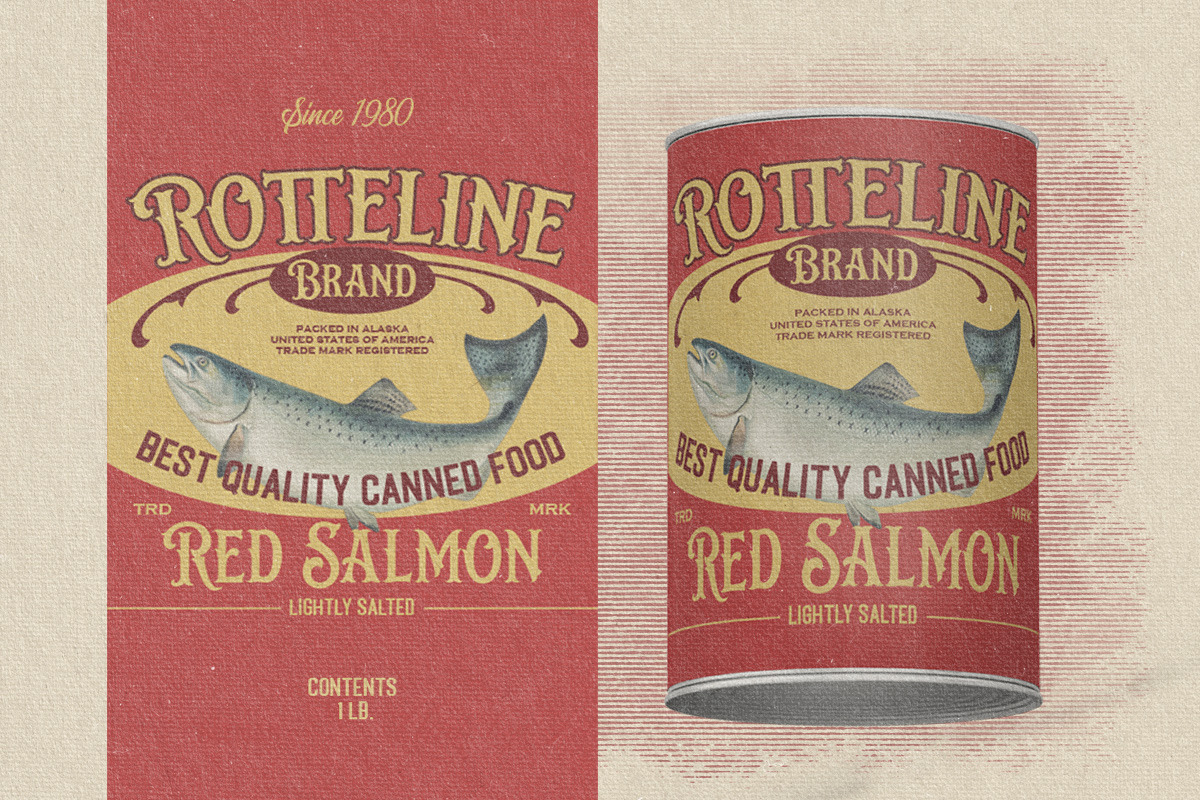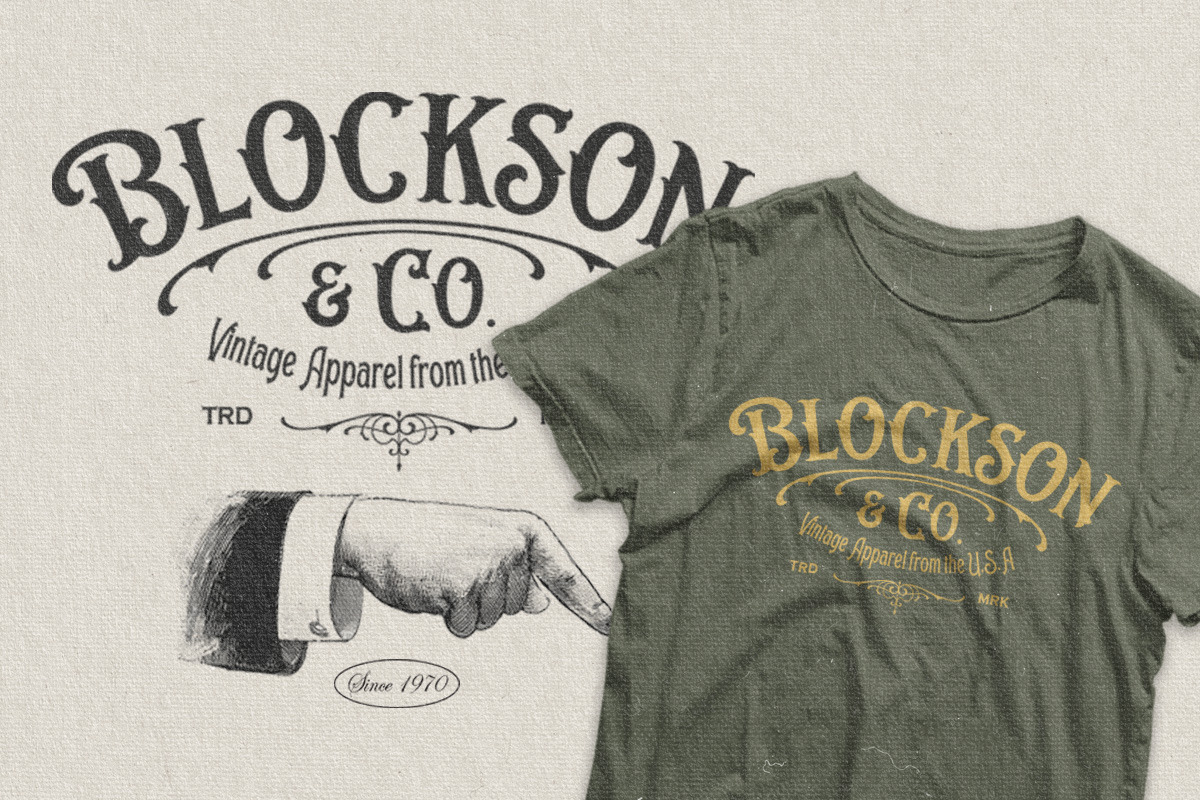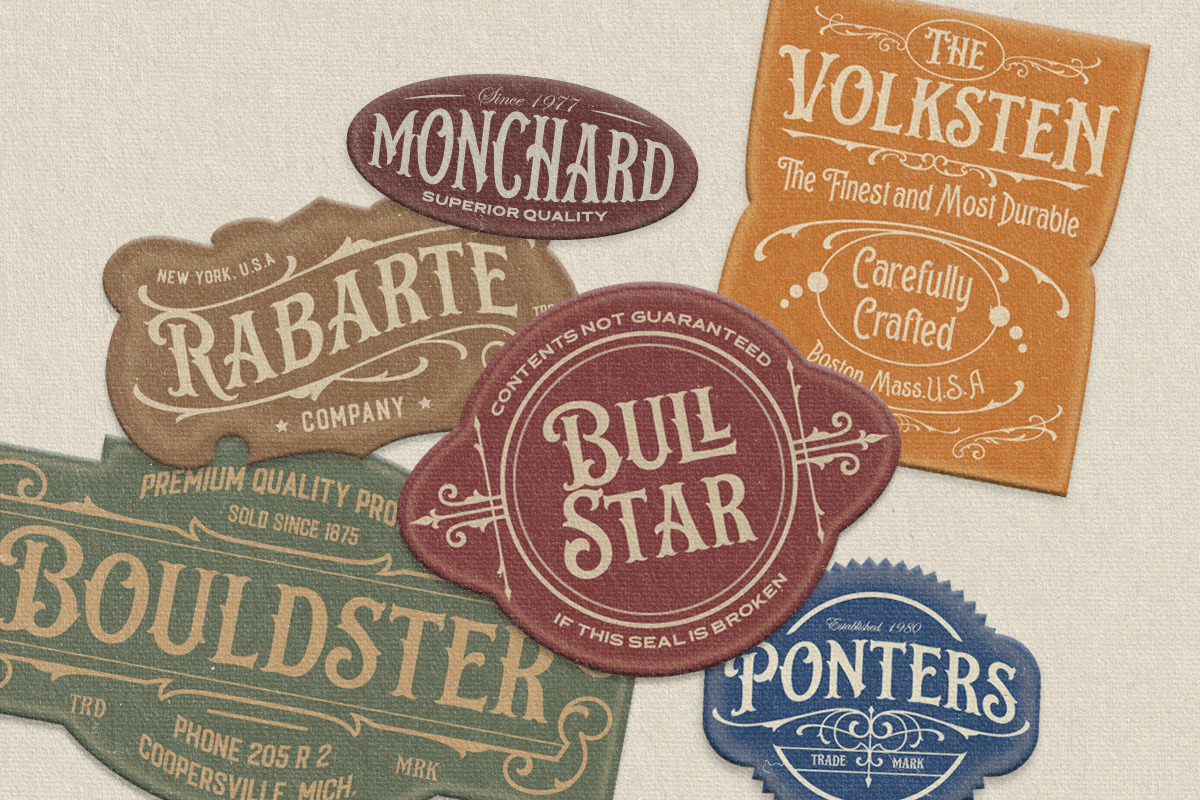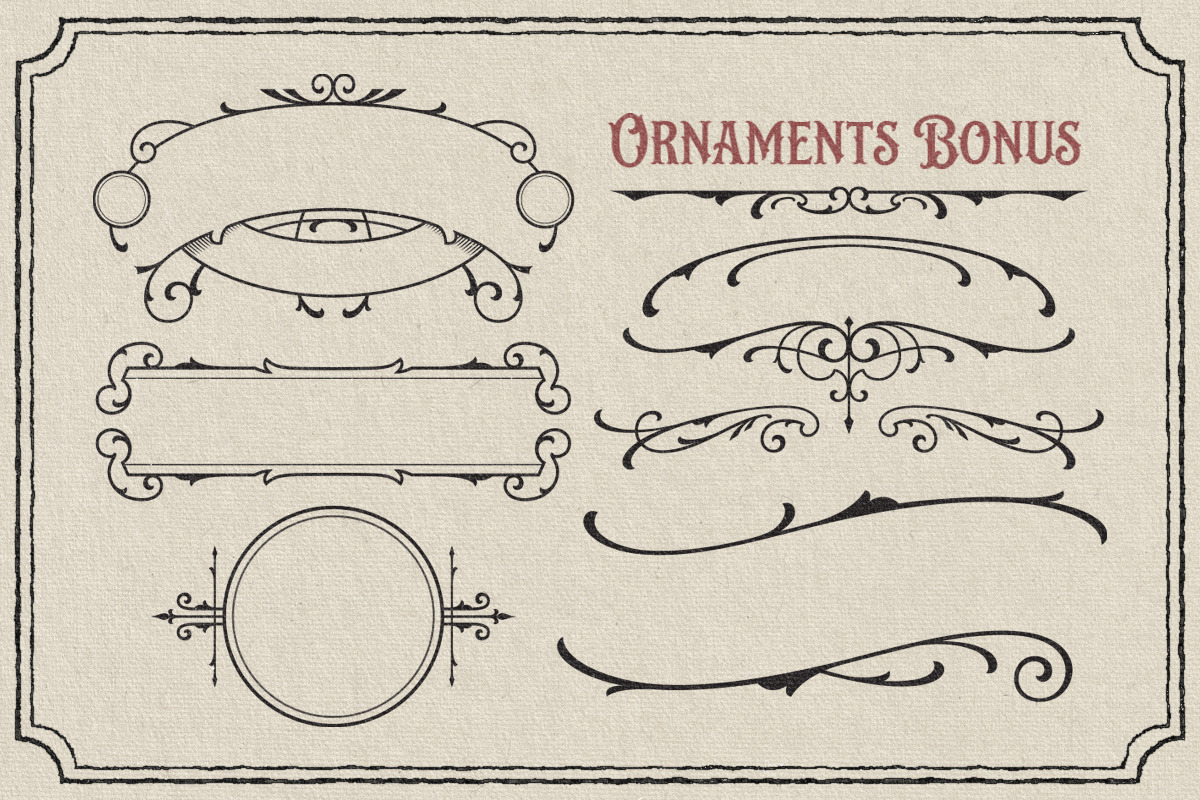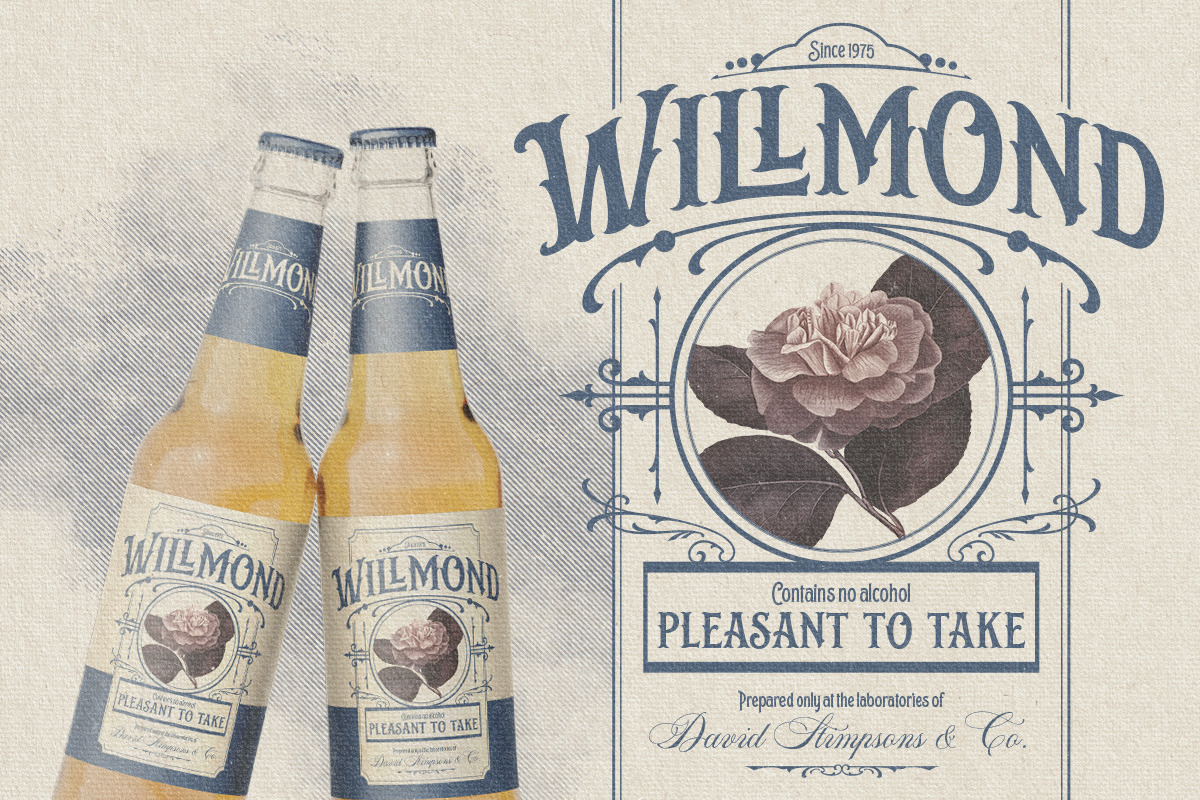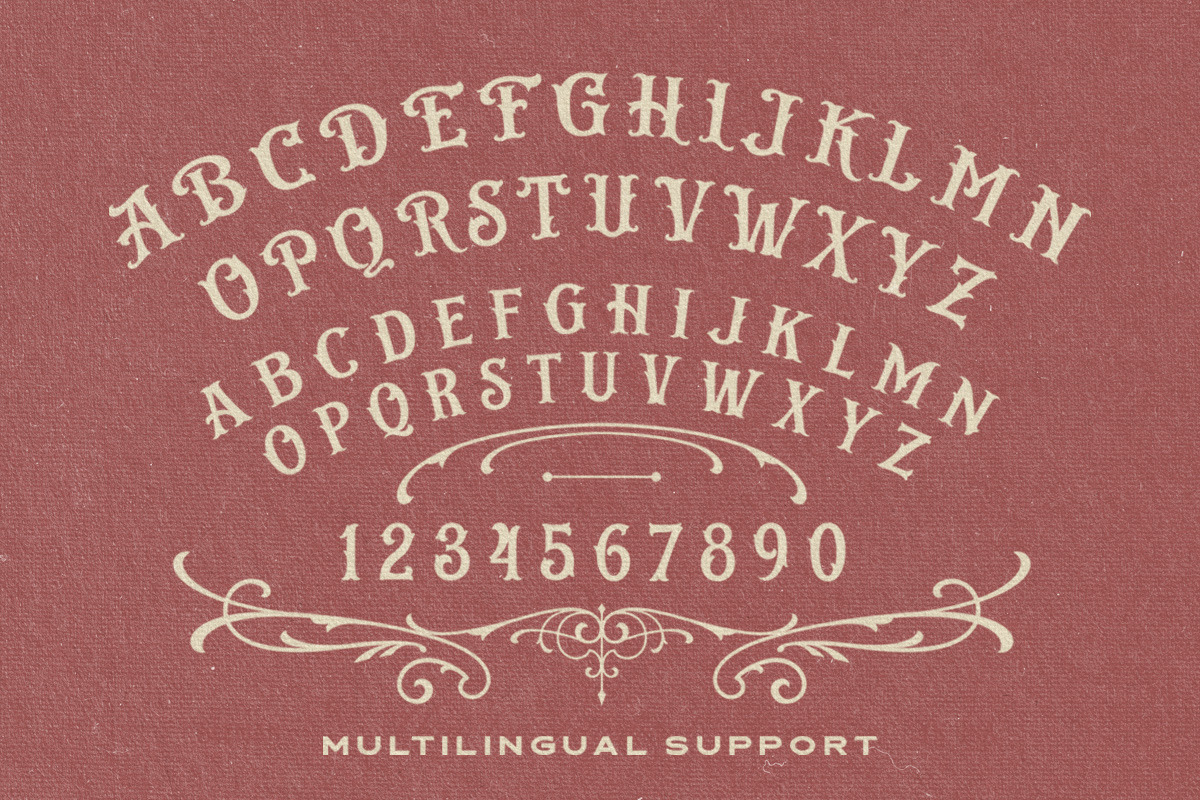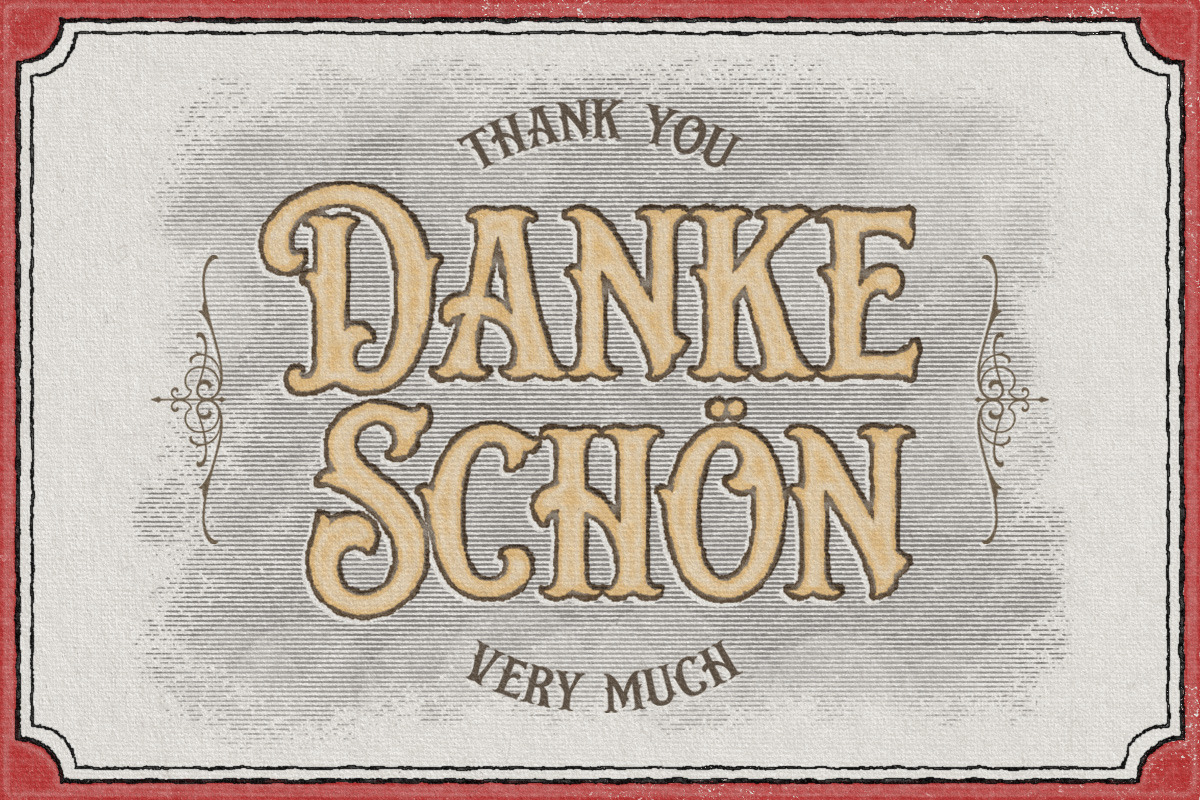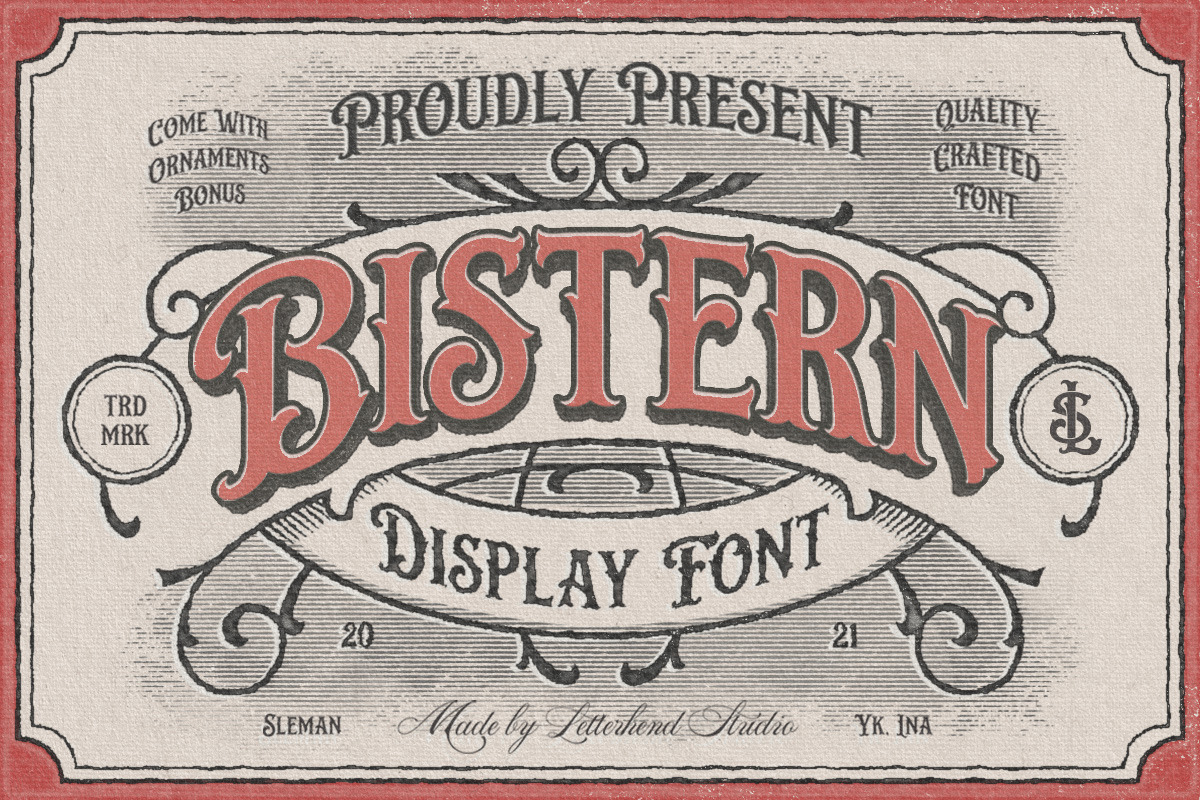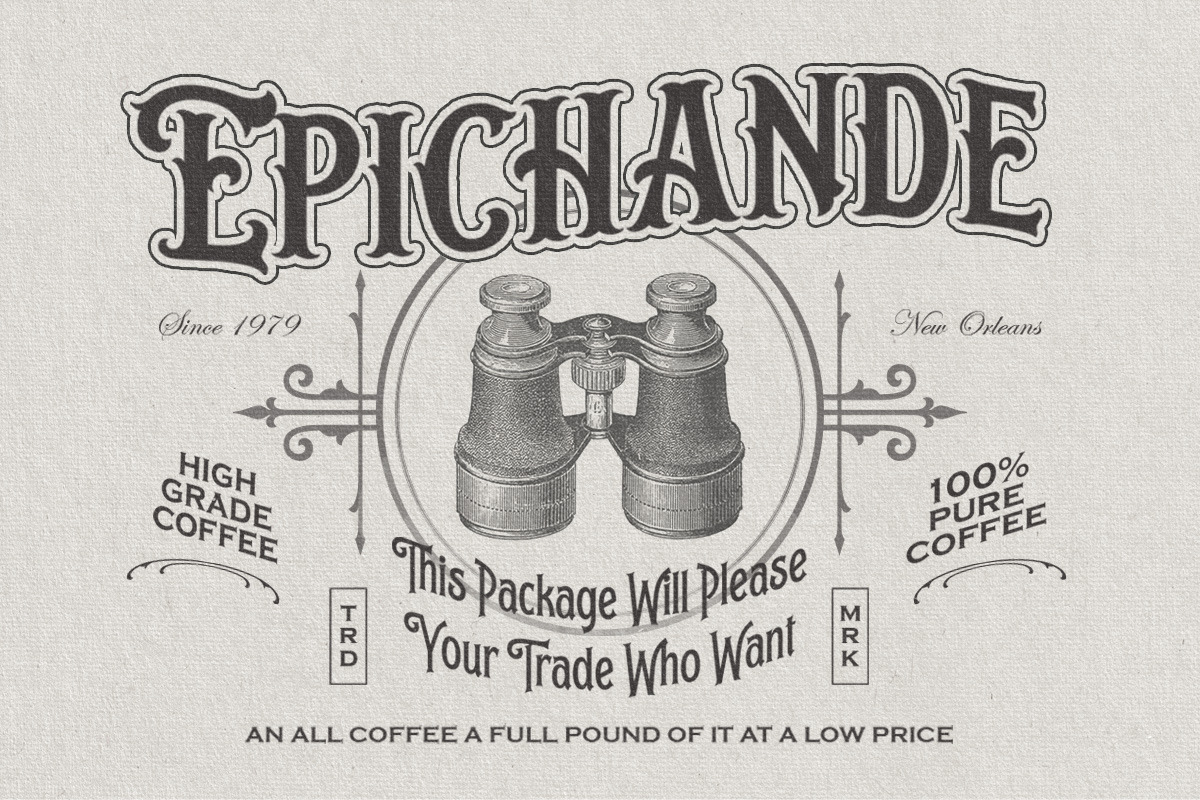
Bistern - Victorian Display Font
Bistern is a typeface which is inspired by vintage lettering sign and art. While this font has a victorian touch, it still looks bold and solid. Very suitable for for headline, logotype, apparel, invitation, branding, packaging, advertising etc with old school / retro theme.
This typeface contains with beautiful decorative ornaments in vector format that ready to use to create a vintage lettering in sec. It also comes in uppercase, lowercase, punctuations, symbols & numerals, stylistic set alternate, ligatures, etc also support multilingual and already PUA encoded.
- ornaments in vector format
- alternates and ligatures
- swashes